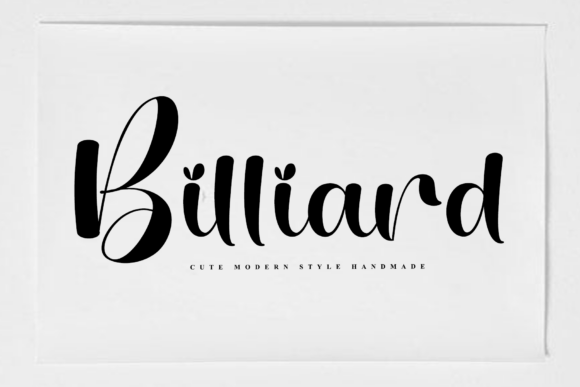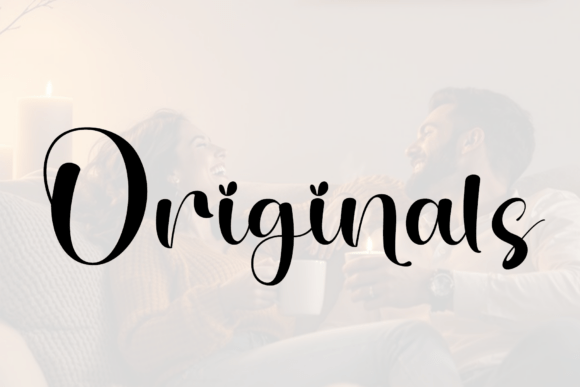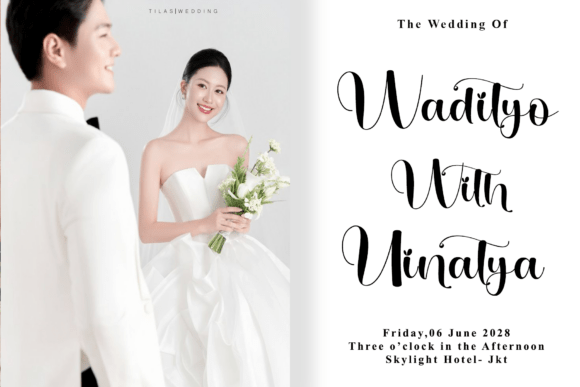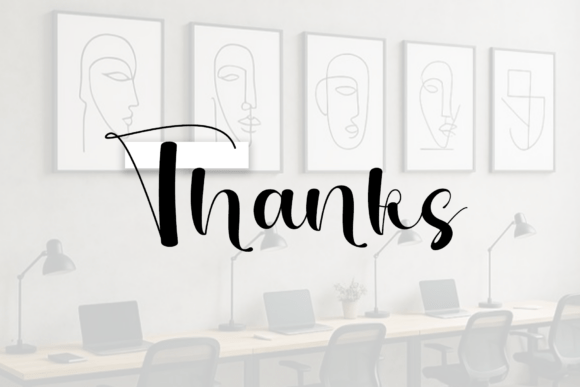
Introducing Consultants Font: A Timeless Handwritten Masterpiece
Are you a designer or crafter looking for the perfect font to elevate your creative projects? Look no further than Consultants Font, a lovely and timeless handwritten font that’s sure to capture your audience’s attention. In this article, we’ll dive into the world of Consultants Font, exploring its unique features, benefits, and uses.
A Unique and Beautiful Touch
Consultants Font boasts a distinctive and beautiful touch, setting it apart from other fonts in its category. Every letter has been carefully crafted to bring a sense of elegance and sophistication to your designs. Whether you’re creating eye-catching logos, branding materials, or quotes, Consultants Font is the perfect choice. Its unique character will add a personal touch to your work, making it stand out from the crowd.
The Perfect Choice for Designers and Crafters
As a designer or crafter, you understand the importance of selecting the right font for your project. Consultants Font is an excellent option for various design applications, including:
- Logo Design: Create a lasting impression with a custom logo that showcases your brand’s personality. Consultants Font’s elegant and sophisticated feel makes it an excellent choice for logos that require a touch of class.
- Branding: Develop a consistent visual identity across all your marketing materials using Consultants Font. Its timeless appeal ensures that your brand will remain relevant and stylish for years to come.
- Quotes and Typography: Add a touch of personality to your quotes and typography with Consultants Font’s unique and beautiful lettering. Perfect for social media graphics, posters, and flyers.
Benefits of Using Consultants Font
So, why choose Consultants Font for your design projects? Here are just a few benefits:
- Timeless Appeal: Consultants Font’s classic and elegant feel ensures that your designs will remain stylish and relevant for years to come.
- Unique Character: Every letter has a distinctive and beautiful touch, adding a personal touch to your designs.
- Versatility: Use Consultants Font across various design applications, from logos and branding to quotes and typography.
- Ease of Use: Consultants Font is easy to read and works well in both digital and print formats.
Tips for Using Consultants Font
To get the most out of Consultants Font, here are a few tips:
- Experiment with Font Sizes: Consultants Font looks great in various font sizes, from large headings to smaller body text.
- Pair with Other Fonts: Combine Consultants Font with other fonts to create a unique and visually appealing typography.
- Use in Digital and Print Formats: Consultants Font works well in both digital and print formats, making it perfect for a wide range of design applications.
In conclusion, Consultants Font is a timeless handwritten font that’s perfect for designers and crafters looking to add a touch of elegance and sophistication to their creative projects. Its unique character, versatility, and ease of use make it an excellent choice for various design applications. Whether you’re creating logos, branding materials, or quotes, Consultants Font is sure to bring your designs to life.